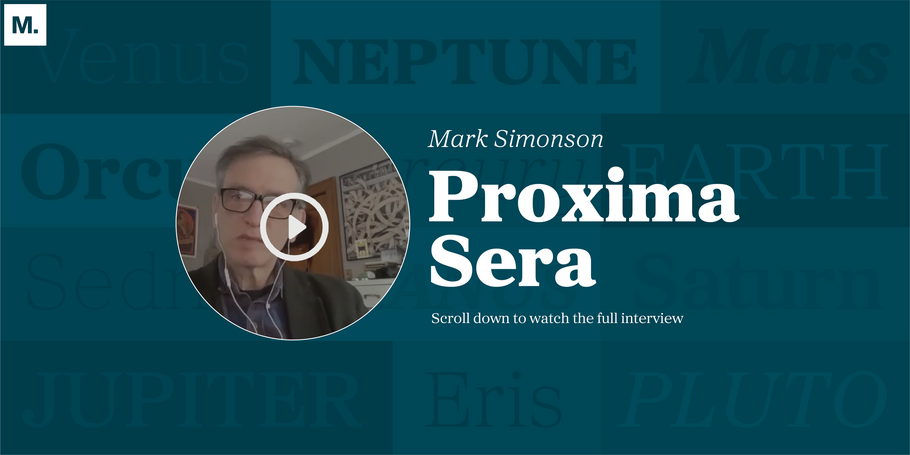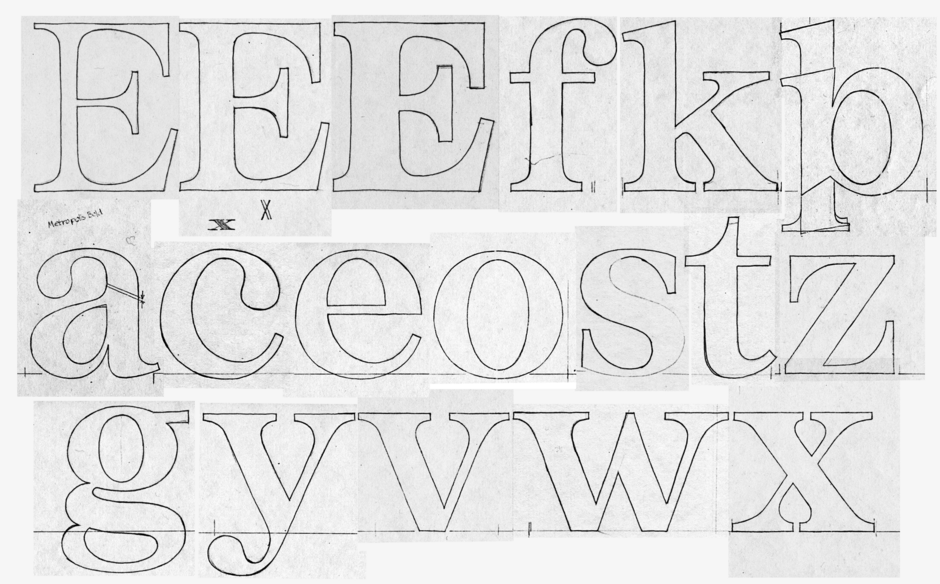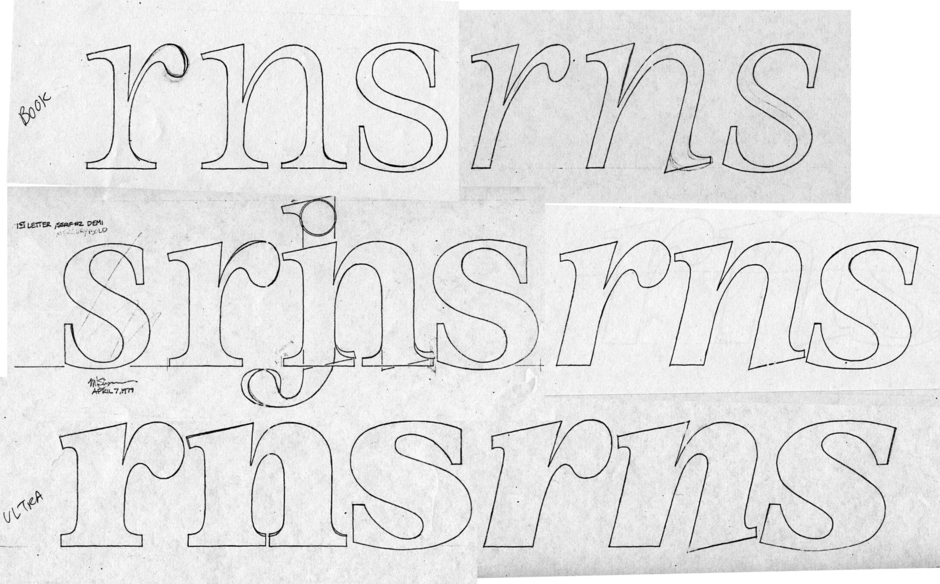
Proxima Sera: a serif story by Mark Simonson
I was trying, as a young type designer, to think of something that would be the Helvetica of Serif typefaces
Mark Simonson is an independent type designer working out of his home in St. Paul Minnesota. Mark was variously a graphic designer, art director, illustrator, and lettering artist before becoming a full-time type designer in 2005. He’s probably best known for designing the typeface Proxima Nova. Recently, we spoke with Mark via Zoom about his latest release Proxima Sera, the serif counterpart to Nova, which pays homage to some of Simonson’s personal favorite household serif names.
Interview with Mark Simonson
MyFonts: What made you decide to make a serif counterpart of Proxima?
Mark Simonson: As soon as I released Proxima Nova in 2005, I began receiving emails from people who had licensed it asking, “What serif typeface should I pair with this? What other typeface would go well with this?” To be honest, when I was designing it, I wasn’t thinking about that; I had always made pairing decisions on my own. I would suggest a modern typeface, like Century Schoolbook or Rockwell, (a slab serif that shares some underlying design similarities) but none of my answers felt very satisfactory.
I thought about the idea of simply adding serifs to Proxima, but I experimented with that, and it never quite felt right, so I set it on the back burner and stopped working on it. Later, when thinking about existing serif & sans serif pairs, I realized that they weren’t often used together. For example, I had never seen Adrian Frutiger’s Univers, Serifa and Glypha (which are basically Univers with serifs) used together, so I thought, “that’s not probably the right approach.” I saw other things such as FF Meta and FF Meta Serif, which seemed to work better but in the back of my mind I was thinking about how much I enjoyed using Morris Fuller Benton’s typefaces together: Century Schoolbook, Century Expanded, Century Old Style, and News Gothic, Franklin Gothic, and Alternate Gothic. Even though they weren’t designed as a large family, they worked well together. I pivoted to not just adding serifs, but creating a separate design that would work harmoniously with Proxima Nova and had some affinities.
Way back in 1979, I was trying to think of a hybrid of some of my favorite serif typefaces: Times Roman, Plantin, Century Expanded, Baskerville, with proportions similar to Helvetica. At that point, as a young type designer (not even a published type designer yet), I wanted to design the Helvetica of serif typefaces, which is something all type designers try to do. I realized that my old hybrid idea might work, so that inspired my approach.
MF: How did you go about designing that serif and what was the process like?
MS: I had digitized some of my sketches from my initial idea in 1979, but I quickly realized that design was not a good companion for Proxima Nova. The design process then became modifying my original idea into something that would harmonize better with Proxima Nova. I altered the proportions. I changed some of the details: the way the lowercase ‘a’s top fits into the shoulder, so it was more agreeable with Proxima Nova. I also had to get the weights to align – Proxima Nova goes from thin to black, so I needed a similar gradation of weights with this Serif concept. The serif italic would be more typical, rather than Proxima Nova’s italic which is basically a slanted design with a couple of curves, a one story ‘a’ and things like that. With serif italics, more goes into it than angling it and adding a one story ‘a’.
People would come to me asking what Serif would go with Proxima Nova, and I never really had a good answer for them. So, I set out to design a Serif typeface that could live on it's own outside of Proxima Nova but would pair perfectly with it.
MF: I’m guessing the process was a fun one for you.
MS: It was very interesting. I didn’t think I was making dramatic changes to the original concept from 1979, but it turned out to be quite a bit different than I expected. I was happy with the way that it worked with Proxima Nova. The most interesting part was designing the italic because I didn’t really have an original plan of how the italic would work. Seeing what it looked like on a page next to Proxima Nova was really illuminating.
MF: What elements make Proxima Sera both old style and modern?
MS:
I think it’s probably closer to a modern style, but there are some elements that you see more often in an old style.
Old style elements:
• Roundness: the ‘O’ and ‘C’ and ‘G’ are round whereas modern typefaces, like Bodoni and Century, tend to be narrower and oval shaped
• Terminals: see the top and bottom of the ‘S’ and the top of the ‘C’. There’s usually a little spur serif on those in moderns. I picked this up from the influence of Plantin
• Contrast: I tried to make the modulation between the thick and the thin parts like Century, Century Schoolbook or Plantin, rather than Bodoni
Modern elements:
• Terminals: the lowercase ‘f’, ‘f’ and ‘c’ have ball terminals, which look more like a modern face
• Top serifs: on lowercase letters, like the ‘n’, ‘m’, ‘h’ and the ‘d’ and is flat instead of angled. With an old style, the top serifs would be at an angle and even triangular
MF: What elements of Proxima Sera make it legible?
MS: In some ways the same things that make Proxima Nova legible: its fairly open counters, the open apertures on the letters, also make Proxima Sera legible. It doesn’t appear busy when set in body text, it feels comfortable to read. The overall texture and color is consistent and it doesn’t have a lot of noise, partly because of the flat serif - there aren’t a lot of little spiky points sticking out. It has uniformity, but there’s enough differentiation between the characters that it’s readable, and it’s also fairly wide, so it looks like a newspaper typeface and its proportions are designed to be very readable.
I normally wouldn't do a thin typeface for a Serif but I wanted to match the weights available for Proxima Nova, so I had to push it as thin as possible to match those up